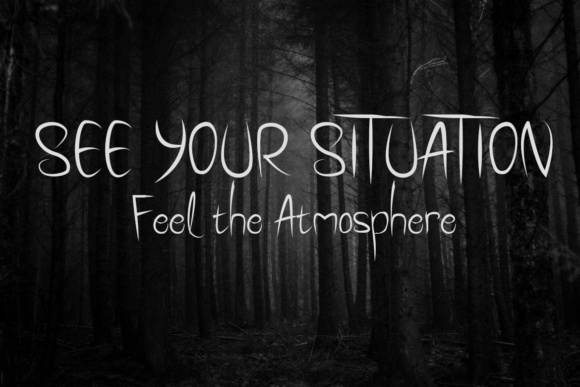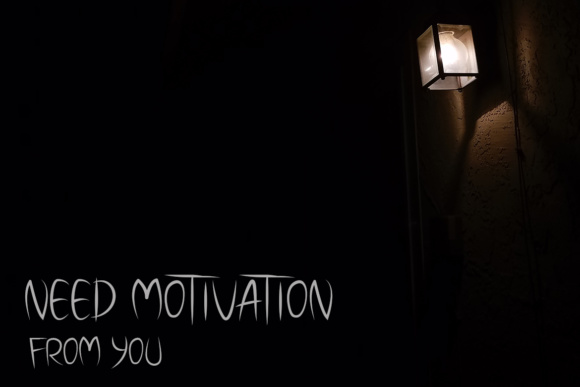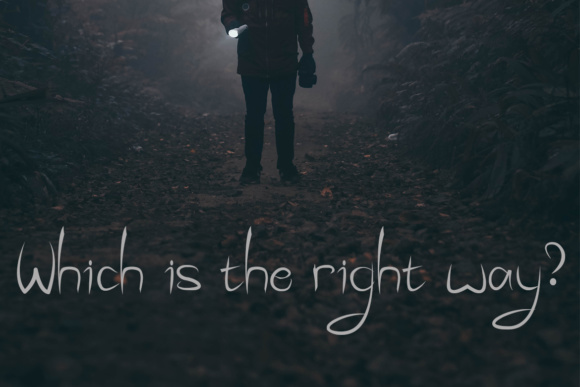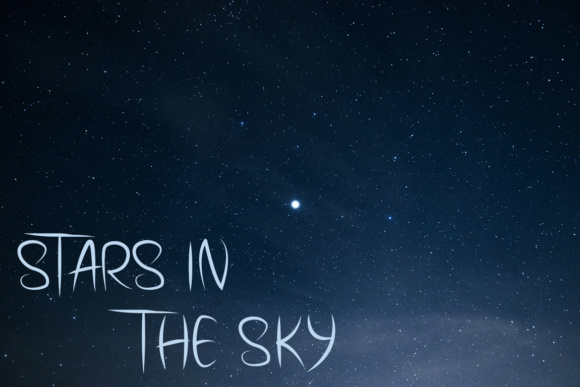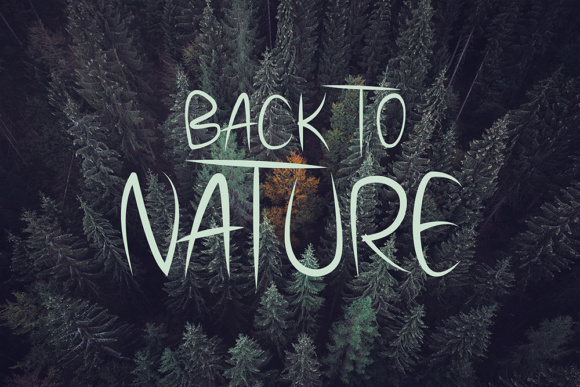
HomeScript FontsThe Incisive Font Script Fonts The Incisive Font FacebookXPinterestWhatsApp The Incisive Font Poster 2 The Incisive Font Poster 3 The Incisive Font Poster 4 The Incisive Font Poster 5 About The Incisive Font The incisive is a script font with a scary vibe. It’s perfect for horror and mysterious designs. DOWNLOAD ON CREATIVE FABRICAThis font is sold and delivered by Creative Fabrica. Font Canyon may earn a commission if you buy through this link. People also explored The Overthinkers Font Rigular Script Font Family House Font Brigifts Font Kimono Font Signature Rose Font PowerBoat CPC Font Let That Be Enough Font Tropical Summer Font 417 0 TagsThe Incisive Font Previous articleThreadcount FontNext articleHalf Baked Font LEAVE A REPLY Cancel reply Comment: Please enter your comment! Name:* Please enter your name here Email:* You have entered an incorrect email address! Please enter your email address here Website: Save my name, email, and website in this browser for the next time I comment. Personal Use Free Bajt Rounded Personal Use Free Read more about this font Burgie Personal Use Free Read more about this font Motherblood Personal Use Free Read more about this font Monogram Calligraphy Personal Use Free Read more about this font BLOG Fonts That Capture the Spirit of New York City New York City is more than just a place—it’s an experience, a rhythm, a visual language... Top 7 Google Fonts Alternatives for Faster and Privacy-Friendly Web Design (2025) 5 Fonts That Will Dominate Design Trends in 2026 How to Cut Any Font on Cricut: Convert a Font to SVG (Free)